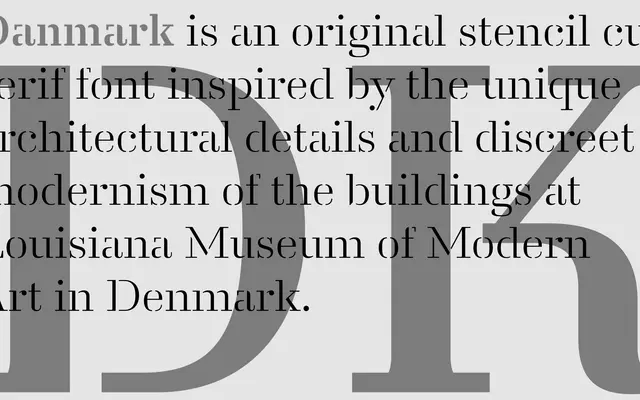
Danmark specimen from A2-Type
A stencil serif drawn from the architectural details of the Louisiana Museum of Modern Art in Denmark, available in five weights.
Inspired by the discreet modernism and architectural language of the Louisiana Museum of Modern Art, Danmark translates structural stencil cuts into a serif typeface across five weights from Thin to Bold. The reference point is specific enough to give the design a coherent visual logic rather than generic stencil pastiche. It suits editorial, cultural and institutional work where a restrained, architecturally informed character is appropriate.
Danmark is explicitly described as a stencil cut serif, combining serif letterform structure with stencil interruptions in the strokes, drawing on architectural modernist references rather than historical type revivals.